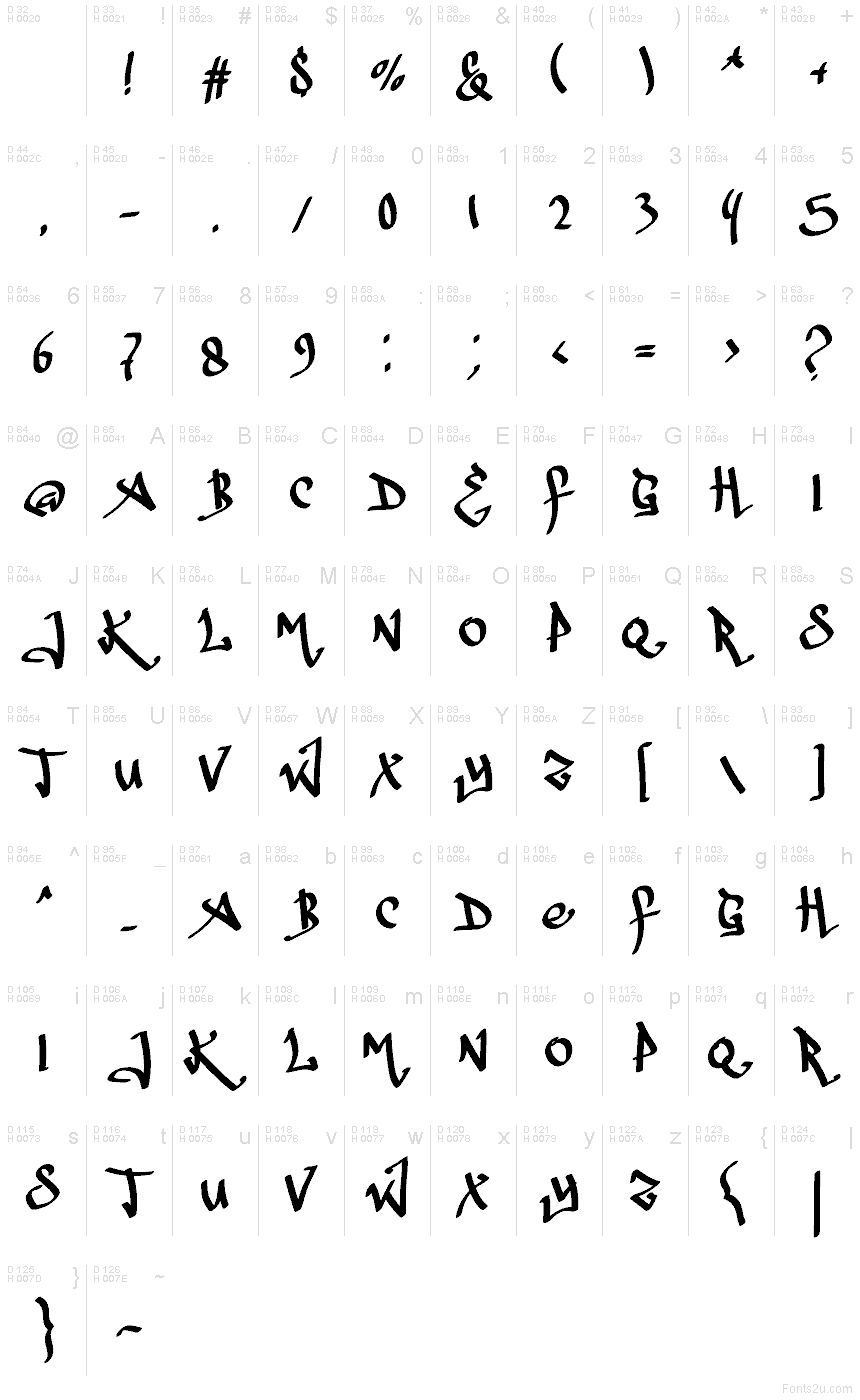
Endlove
Endlove font by Mr.Soon Design is a free graffiti typeface. Its signature look comes from thick, inky strokes that curl and flick like fresh brush tags—bold, bouncy, and a little wild. The letters twist with a ribbon-like motion, giving words a fluid rhythm that feels spontaneous yet readable, with lively curves that leave a splashy, hand-drawn finish.
Using Endlove, you get street energy without losing clarity. This free font shines on album covers, event posters, streetwear logos, stickers, café boards, skate zines, and bold packaging. Keep it large for impact and pair with a clean geometric sans for small details to let the lettering breathe.